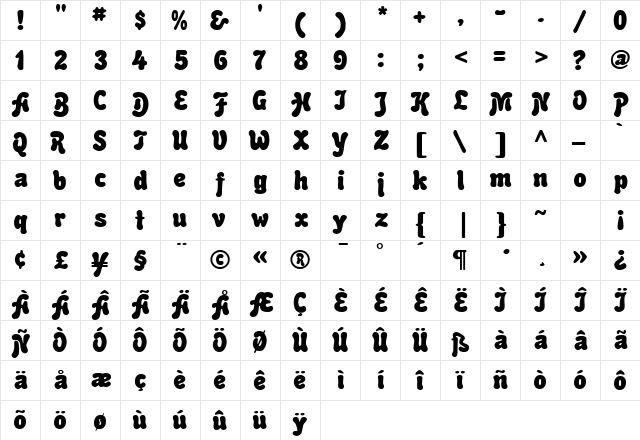
BubbleSoft Regular
Design Context for BubbleSoft Typeface
BubbleSoft trades formality for fun, with bouncy, characterful letterforms that bring warmth and energy to any project.
Font Pairing: Pairs well with a rounded or humanist sans for body copy, maintaining the friendly tone without relying on BubbleSoft to carry extended reading.
Pro Tip: Avoid using BubbleSoft for long passages of text — it works best for headlines, labels, and short calls to action.